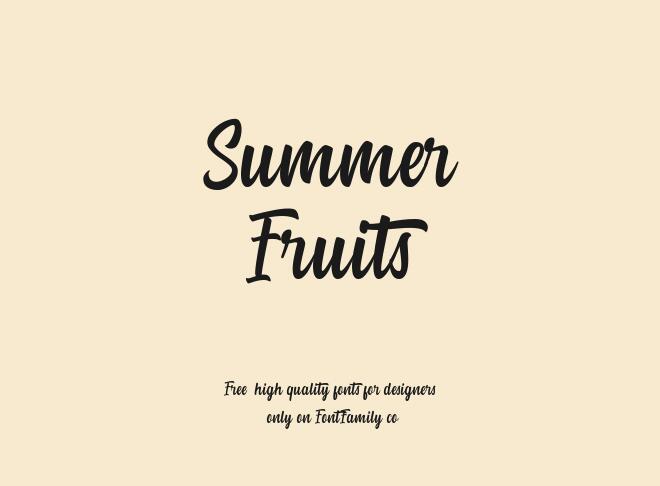
Summer Fruits Font
Summer Fruits Font is a playful, handwritten font that brings a sense of joy and creativity to any design. This font is characterized by its whimsical letterforms inspired by the shapes of summer fruits, making it an excellent choice for playful branding projects, children's book covers, or any design that needs to convey a sense of fun and light-heartedness. The Summer Fruits Font is comparable to other handwritten fonts but stands out due to its unique, fruit-inspired style. It's an excellent choice for designers looking to inject a touch of summer into their projects. The font comes with a range of glyphs and ligatures, providing versatility in design. This free-to-use font is a must-have in any designer's toolkit for creating eye-catching, joyful designs.
Author | Creative Type Foundry |